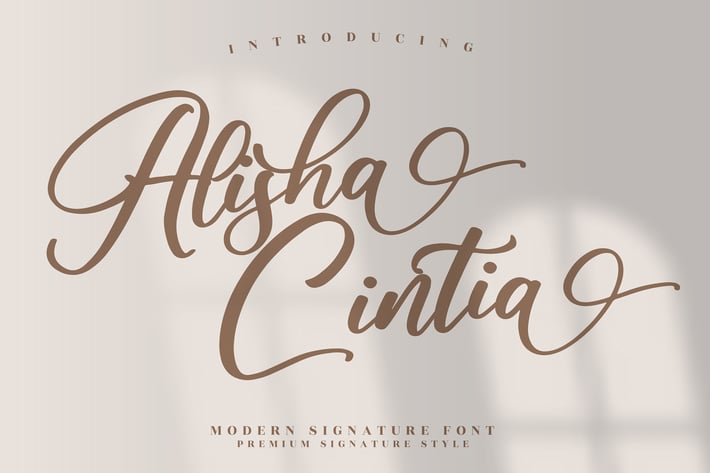
Alisha Cintia Script Font
Alisha Cintia is a modern signature script font designed with smooth curves and elegant handwritten strokes that feel personal yet polished. Its flowing letterforms and balanced rhythm create a graceful signature look, perfect for designs that want to feel warm, stylish, and premium at the same time.
Modern signature script with smooth handwritten flow
Elegant strokes with natural curves
Clean readability for display use
Stylish alternates for a refined signature feel
A modern signature script that captures elegance, warmth, and effortless style — made to leave a lasting impression.*